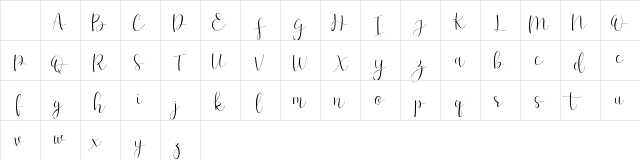
Complete Effort Regular glyph index. Displaying only characters natively supported by Effort Regular font.
Effort is a composed and adaptable typeface that performs quietly and consistently across a wide range of design contexts.